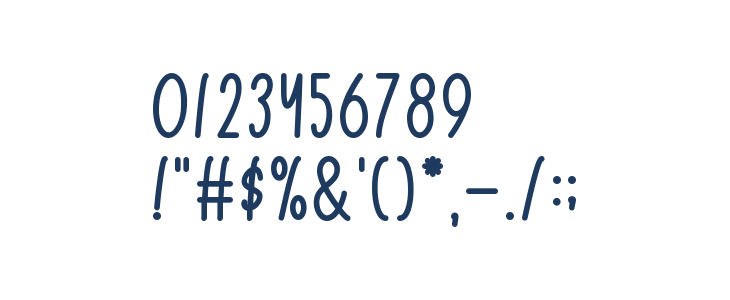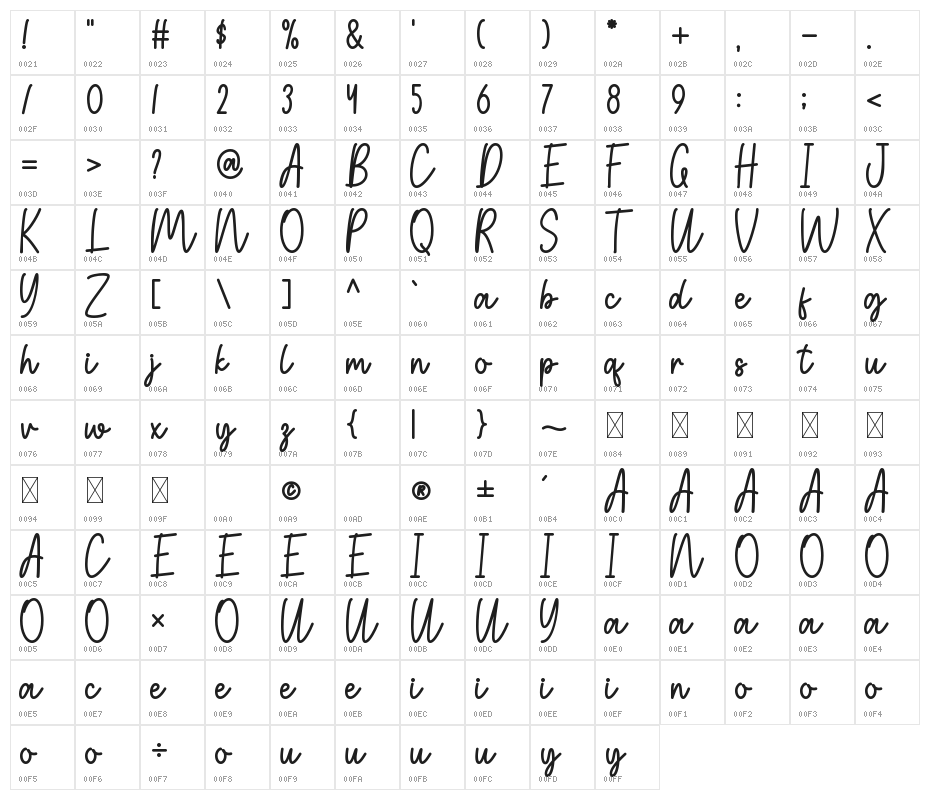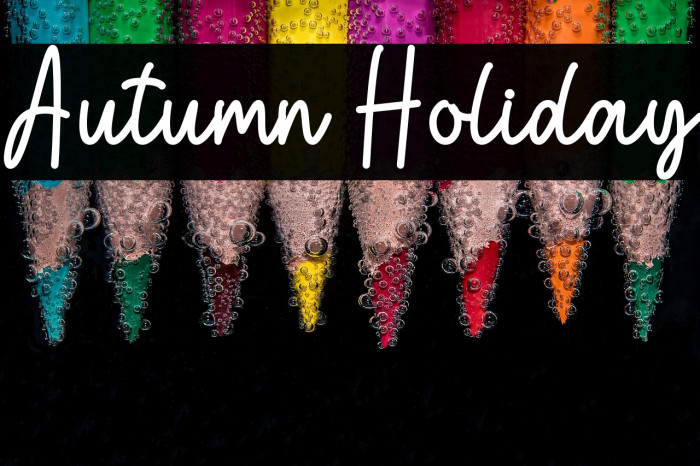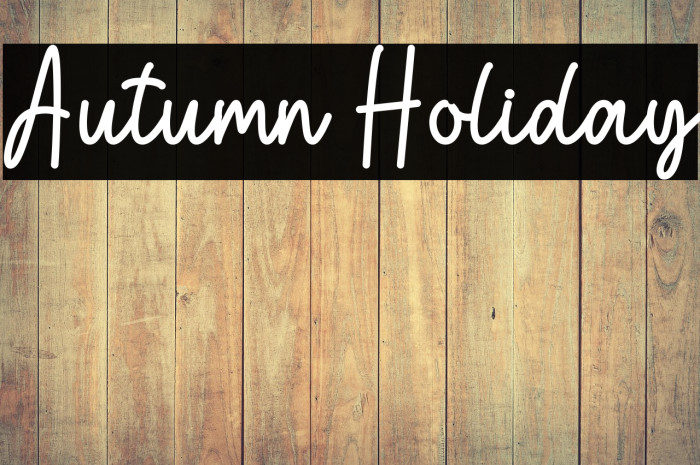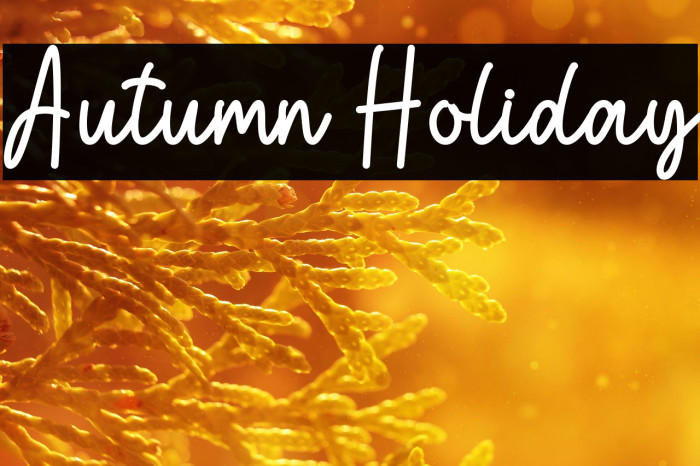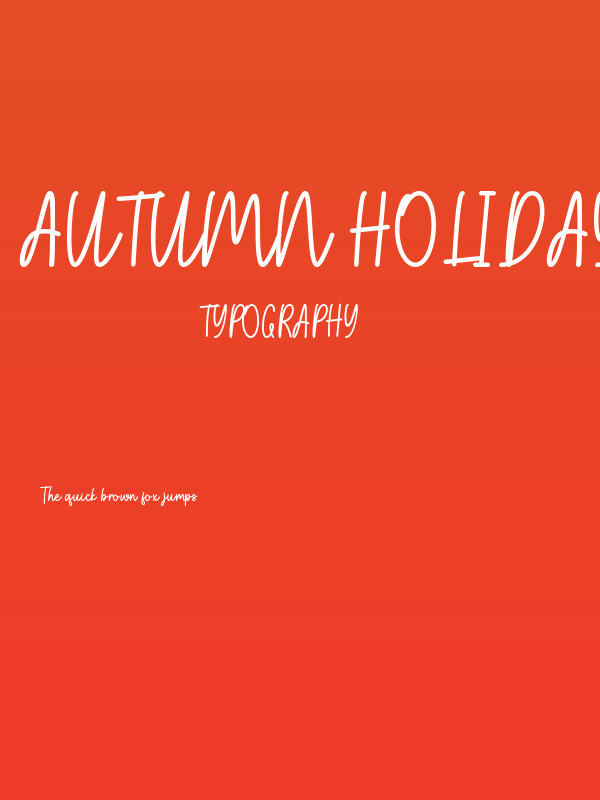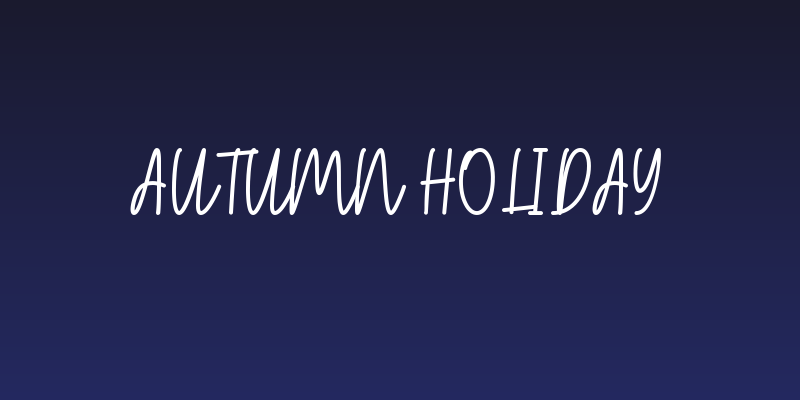
Autumn Holiday Font
Autumn Holiday Description
This font features a playful and casual handwritten style, characterized by its smooth, flowing lines and slightly irregular shapes. The uppercase letters are tall and slender, with a slight slant that adds a dynamic feel. The lowercase letters are more rounded and compact, maintaining a consistent flow that enhances readability. Numbers are clear and distinct, matching the overall aesthetic with their rounded forms. Special characters are creatively designed, integrating seamlessly with the alphabet. This font exudes a friendly and approachable vibe, making it ideal for projects that require a personal touch.